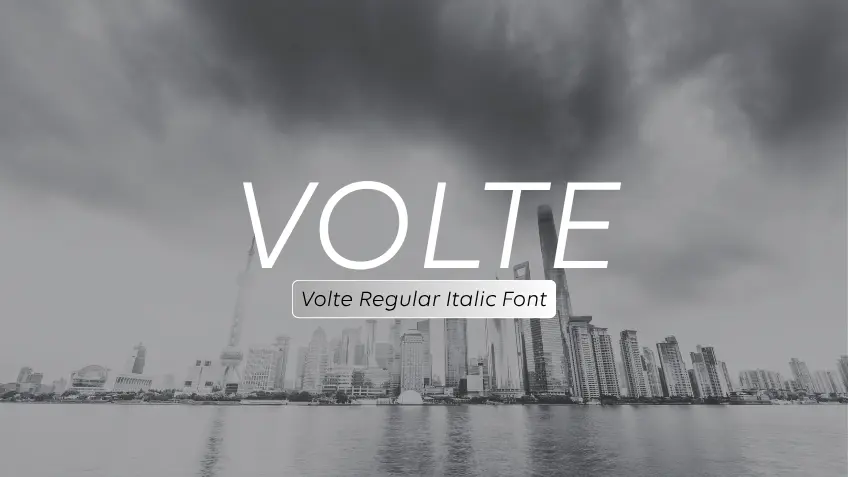
Volte Regular Italic
Volte Regular Italic Font
The font Volte Regular Italic, designed by Namrata Goyal, falls under the Sans Serif category & Volte font family. Its smooth, flowing letterforms make it a versatile choice for projects that require both elegance and readability. Volte is particularly well-suited for Branding, Web Design, App design, UI/UX Design, Educational materials, Corporate Identity and Wordmarks. With its balance of simplicity and decorative appeal, this font brings a polished touch to both personal and professional designs.